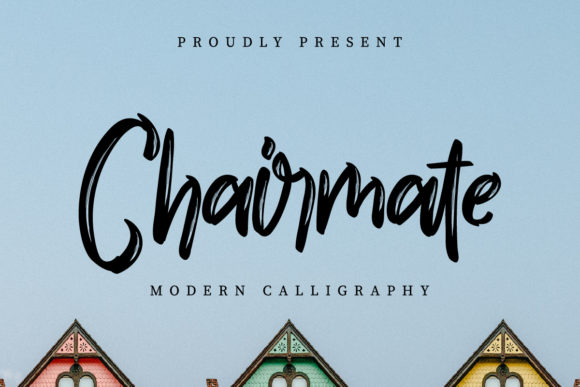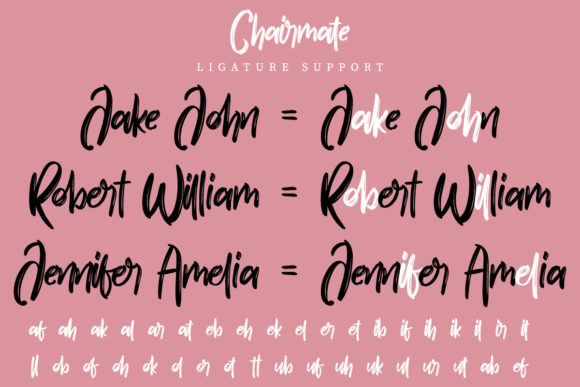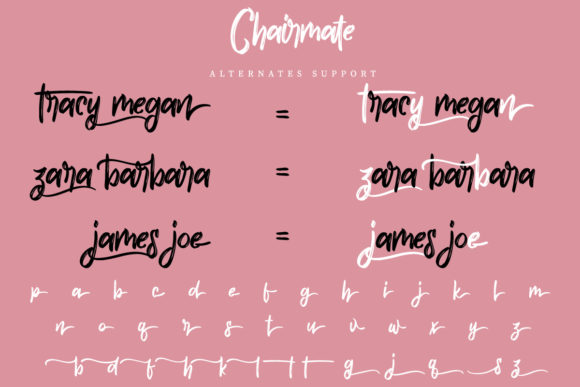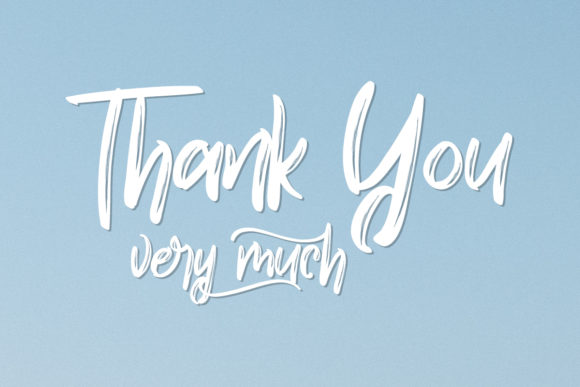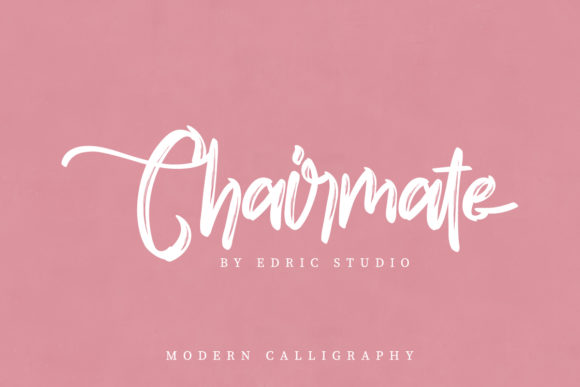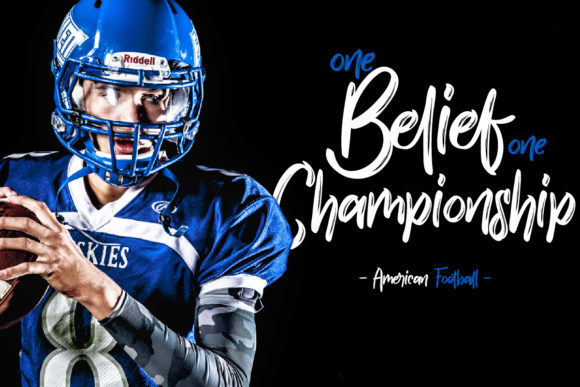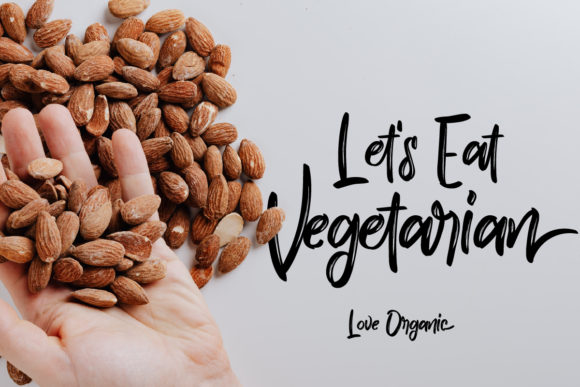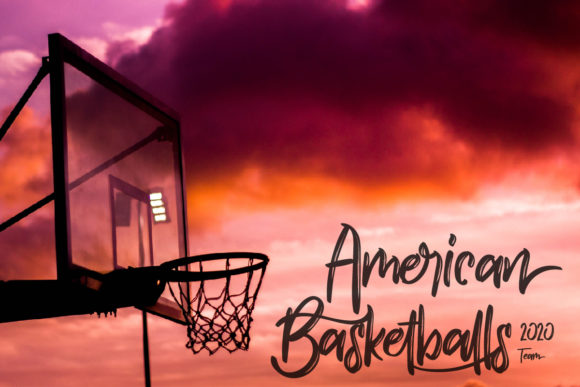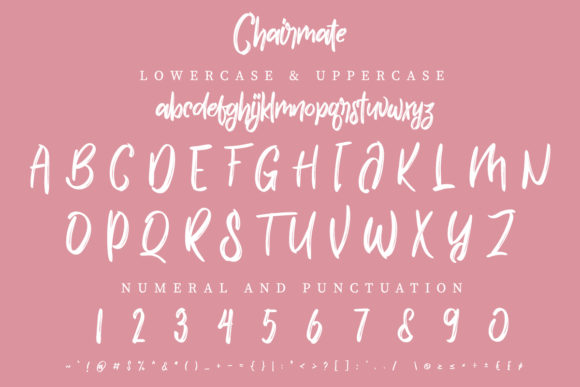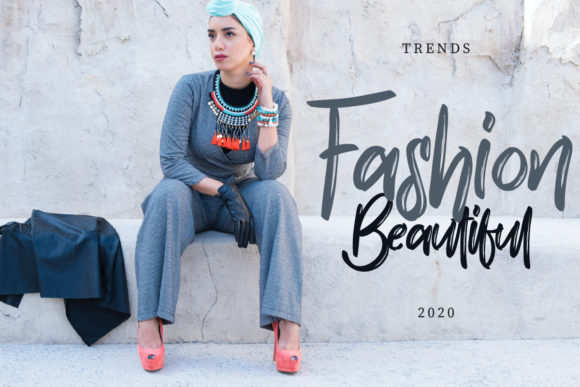
Chairmate Font
About Chairmate Font
Chairmate is a beautiful and unique handwritten font, created with the help of an outstanding brush pen. It looks lovely on wedding invitations, thank you cards, quotes, greeting cards, logos, business cards and every other design which needs a handwritten touch.